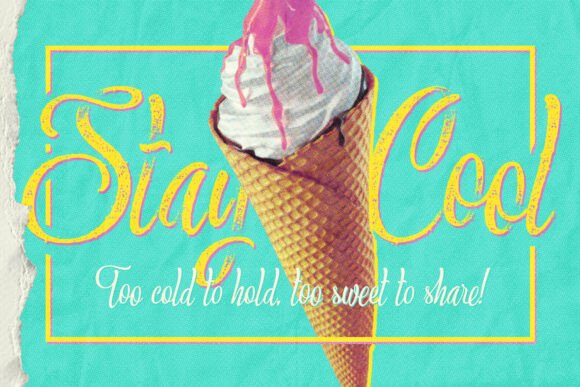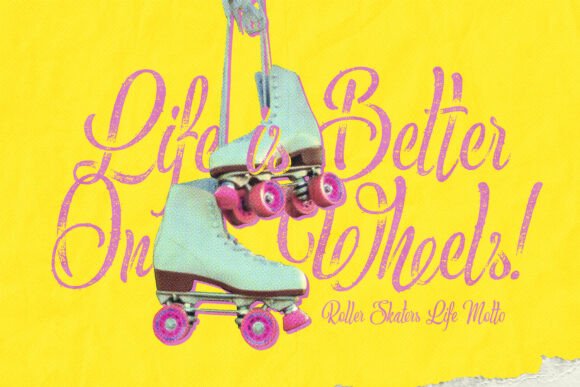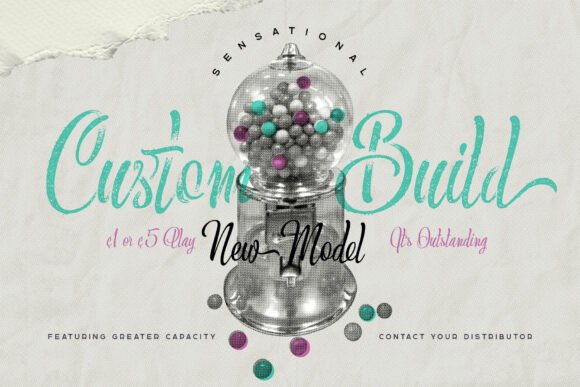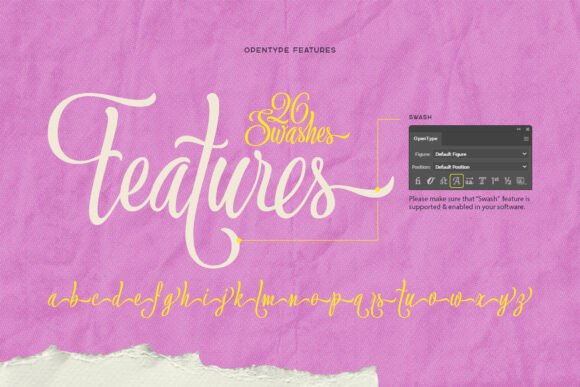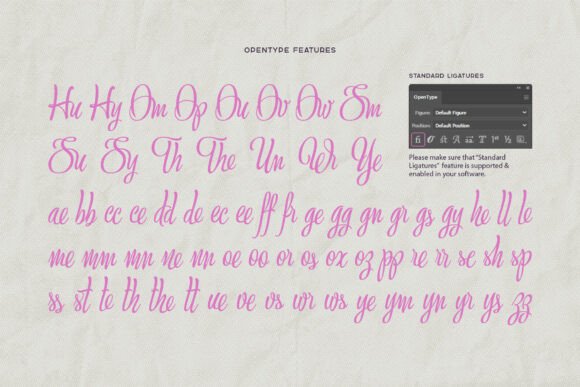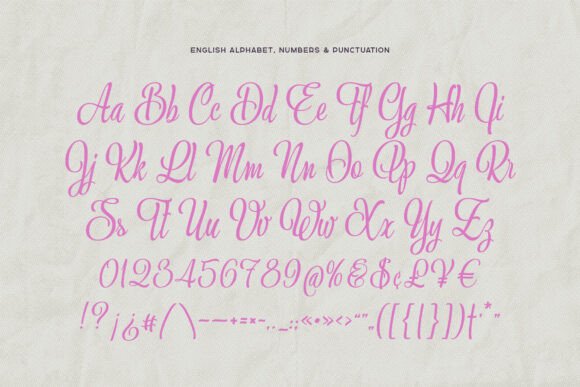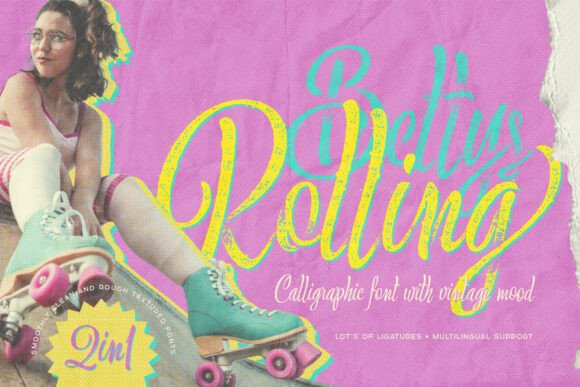
Introducing Bettys Rolling: A Script Font that Embodies the Vibrant Spirit of 80s Roller Skating Culture
Are you ready to add a touch of nostalgia and fun to your designs? Look no further than Bettys Rolling, a calligraphic textured script font that captures the essence of 1980s roller skating culture. This exciting new font set is perfect for designers and crafters who want to infuse their work with the carefree joy and vibrant energy of the iconic 80s skate scene.
The Inspiration Behind Bettys Rolling
Bettys Rolling is more than just a font – it’s a celebration of rhythm, movement, and the unmistakable charm of the 80s skate scene. The font’s fluid, dynamic strokes are designed to mimic the graceful movements of skaters gliding across neon-lit rinks, evoking the sense of freedom and exhilaration that defined this era. The textured details add a retro, hand-painted feel, reminiscent of vintage signage and old printed ads aesthetics, making it perfect for retro branding, posters, and apparel.
Key Features of Bettys Rolling Font Set
The Bettys Rolling font set consists of two fonts, each with its own unique characteristics:
- Textured Rough Version: This font features a textured, rough effect that gives it a hand-painted, vintage look. The rough texture adds a layer of depth and visual interest, making it perfect for designs that require a bold, eye-catching statement.
- Smooth Clean Version: This font has a smooth, clean shape that provides a sleek, modern contrast to the textured rough version. The smooth font is ideal for designs that require a more refined, elegant look.
Design Elements that Bring the 80s Skate Scene to Life
Bettys Rolling font is designed to evoke the natural curves and sense of motion that defined the 80s skate scene. The font’s fluid strokes and dynamic movements bring a sense of excitement and energy to your designs, making it perfect for:
- Retro branding and advertising
- Posters and flyers for events and promotions
- Apparel and merchandise, such as t-shirts, hoodies, and stickers
- Digital graphics and animations
Why Choose Bettys Rolling Font?
Bettys Rolling font is the perfect choice for designers and crafters who want to add a touch of nostalgia and fun to their work. Here are just a few reasons why:
- Unique and eye-catching: Bettys Rolling font is a one-of-a-kind design that is sure to grab attention and stand out from the crowd.
- Versatile: The font set includes two fonts, each with its own unique characteristics, making it suitable for a wide range of design applications.
- Nostalgic and modern: Bettys Rolling font blends nostalgia with a modern edge, making it perfect for designs that require a retro vibe with a contemporary twist.
Get Ready to Roll with Bettys Rolling Font!
If you’re looking for a font that embodies the vibrant spirit of 80s roller skating culture, look no further than Bettys Rolling. With its fluid strokes, dynamic movements, and textured details, this font set is sure to bring a touch of nostalgia and fun to your designs. So why wait? Get ready to roll with Bettys Rolling font and add a dash of retro charm to your work!